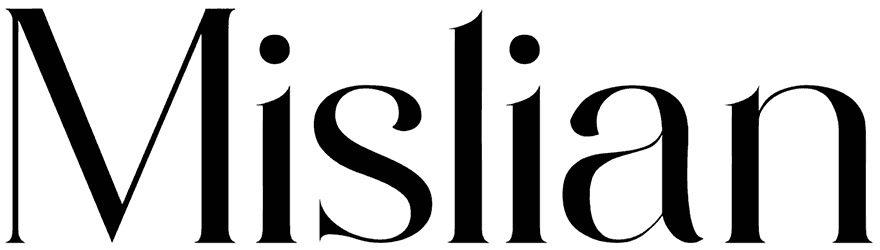
Mislian Font
The delicate serif end of the Mislian font can give any scheme a professional and reliable brilliance that any audience will love and can communicate within a fraction of a second.